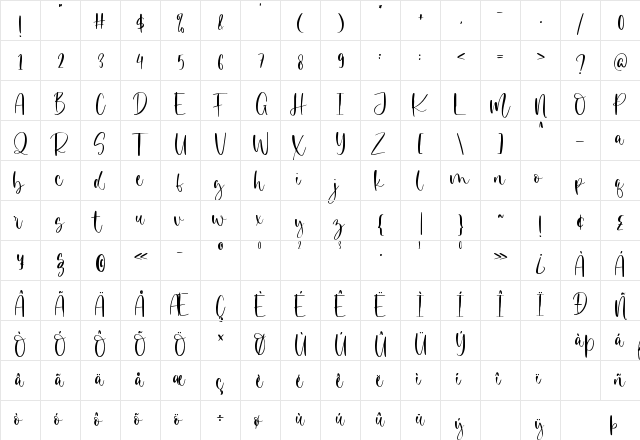
Magistone Regular
Design Context for Magistone Typeface
Magistone is a composed and adaptable typeface that performs quietly and consistently across a wide range of design contexts.